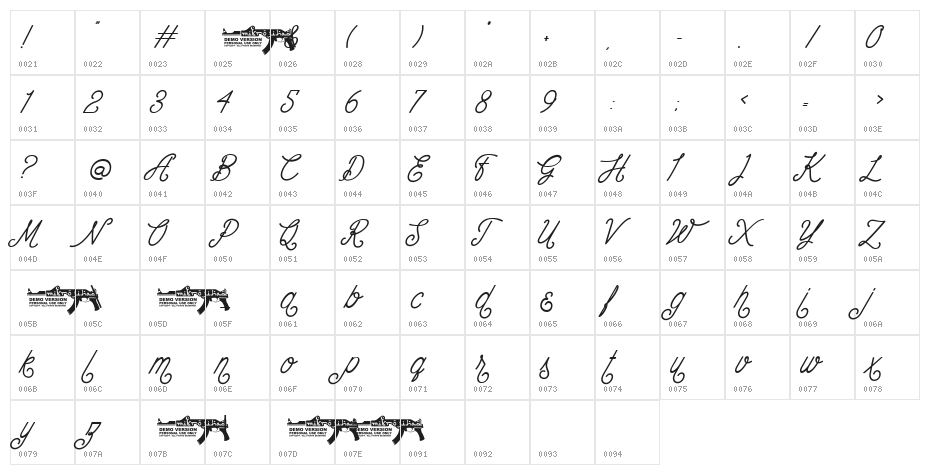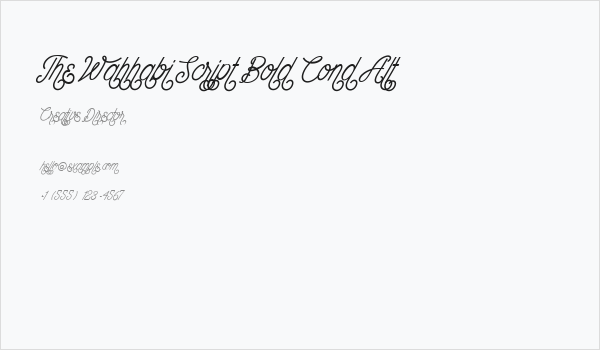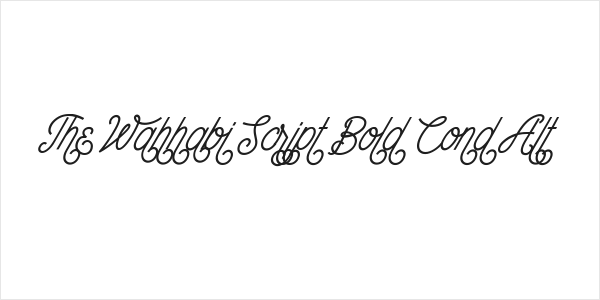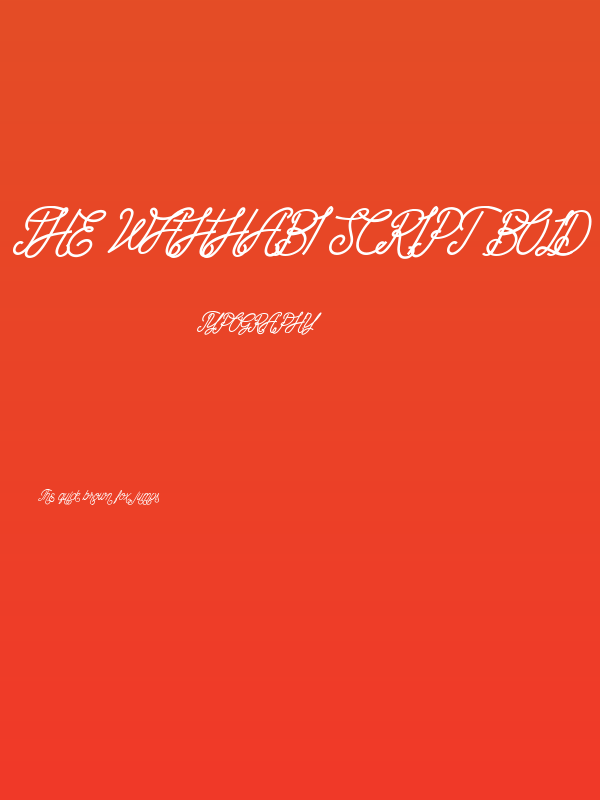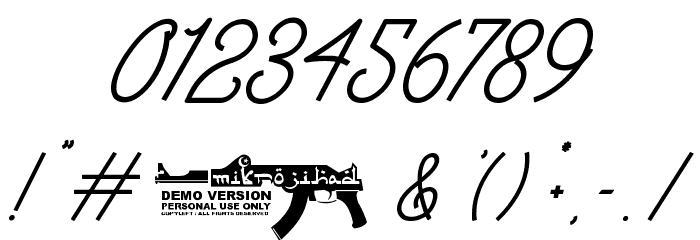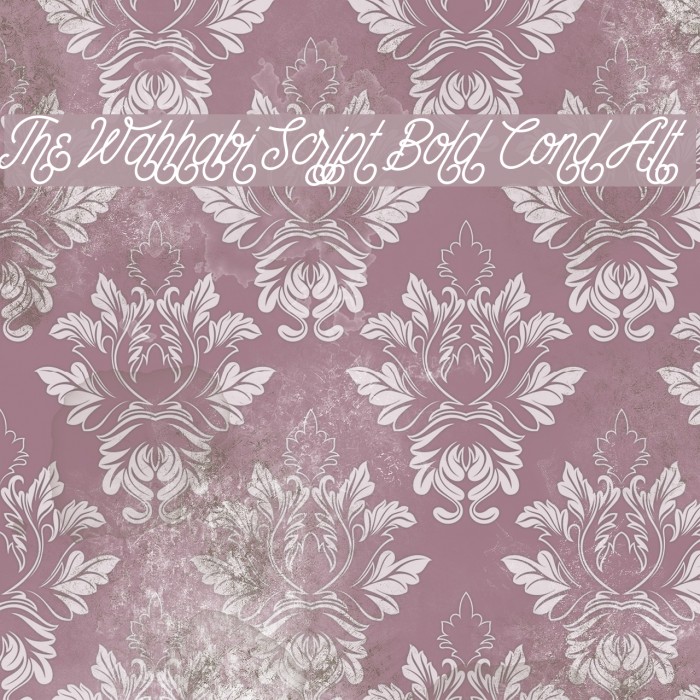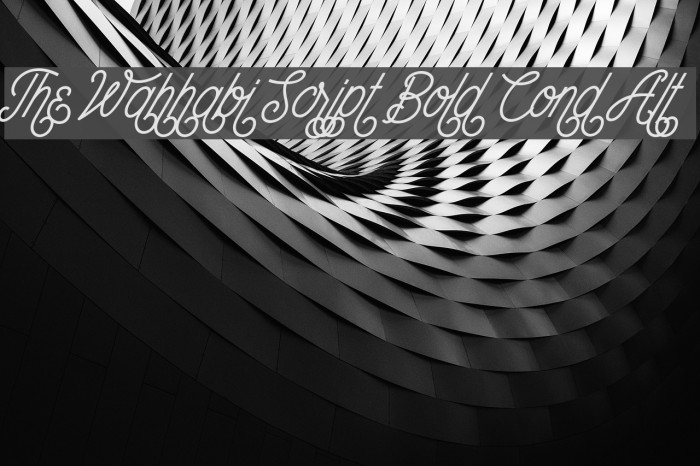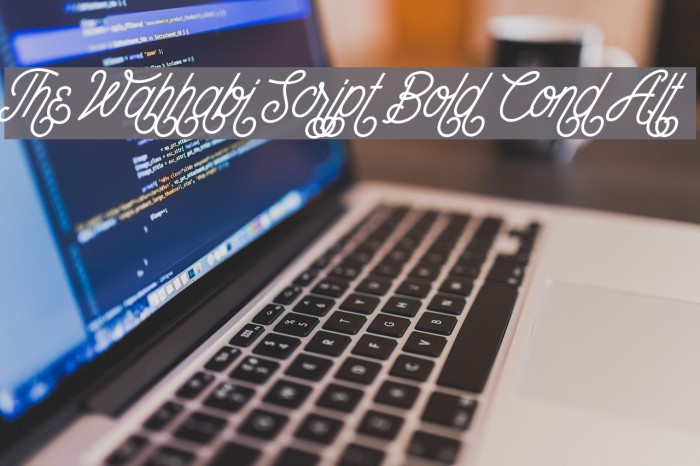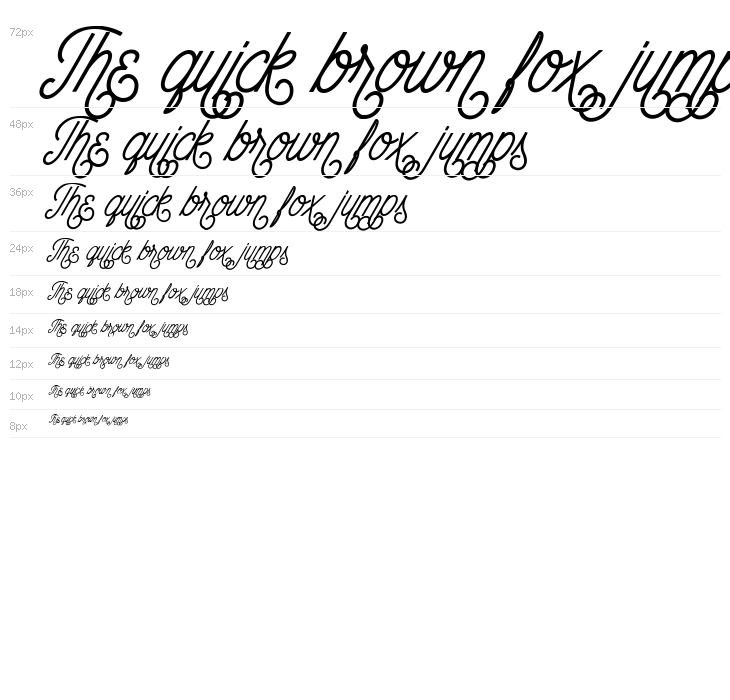
The Wahhabi Script Bold Cond Alt Font
The Wahhabi Script Bold Cond Alt Description
This font features an elegant and flowing script style with a bold presence. The characters are intricately designed with a condensed form, giving it a sophisticated and artistic appearance. The uppercase letters are particularly ornate, with elaborate loops and swirls that add a decorative touch. The lowercase letters maintain a consistent style, complementing the uppercase with their graceful curves. Numbers and special characters are also included, following the same aesthetic. This font is ideal for projects that require a touch of elegance and creativity.
| Proposed Projects | Ideal for wedding invitations, luxury branding, artistic posters, and elegant logos. |